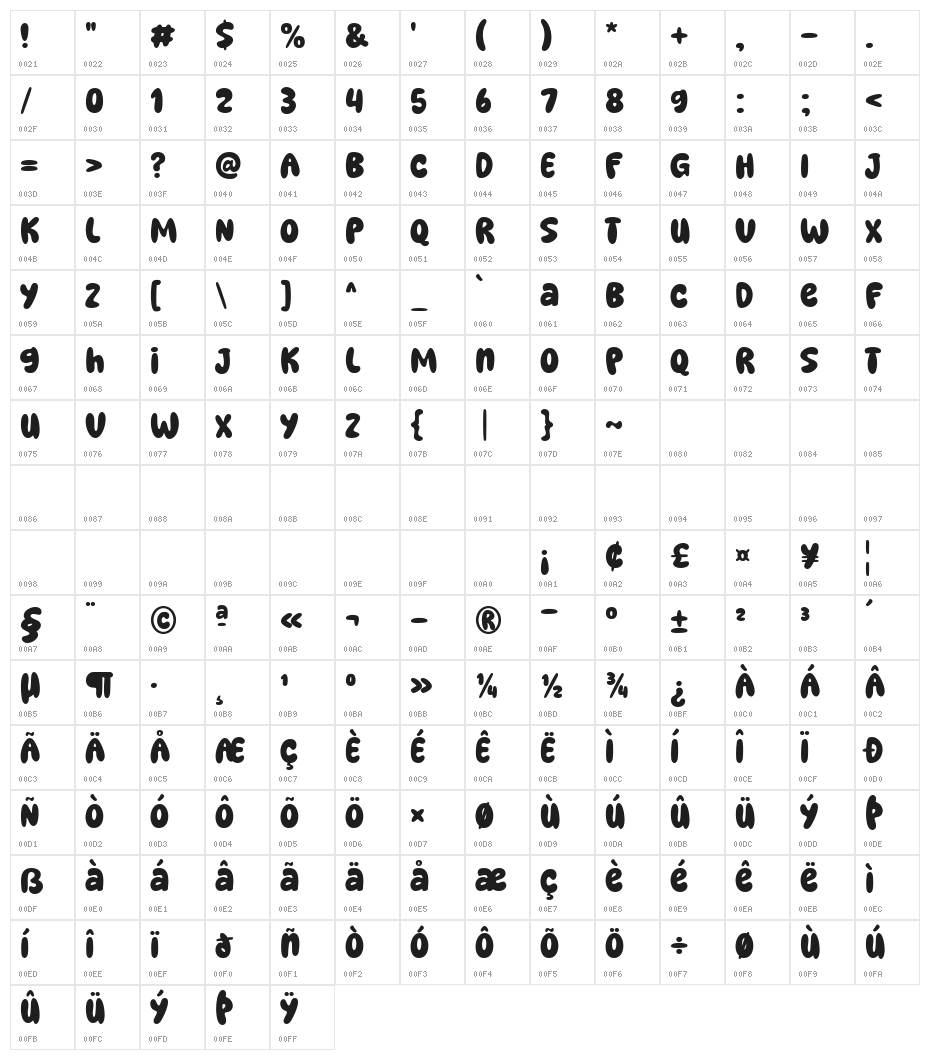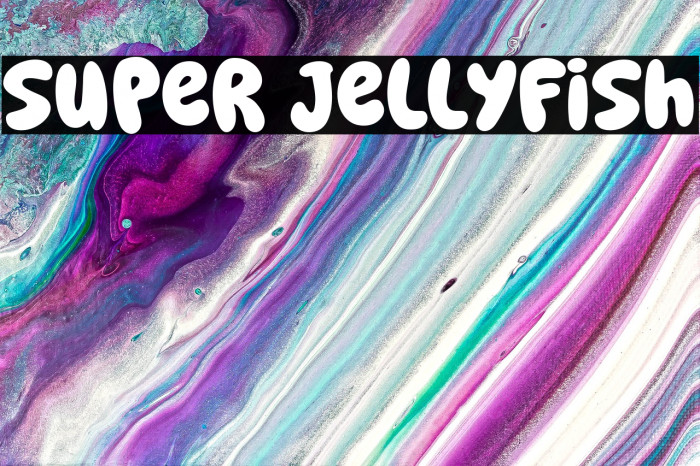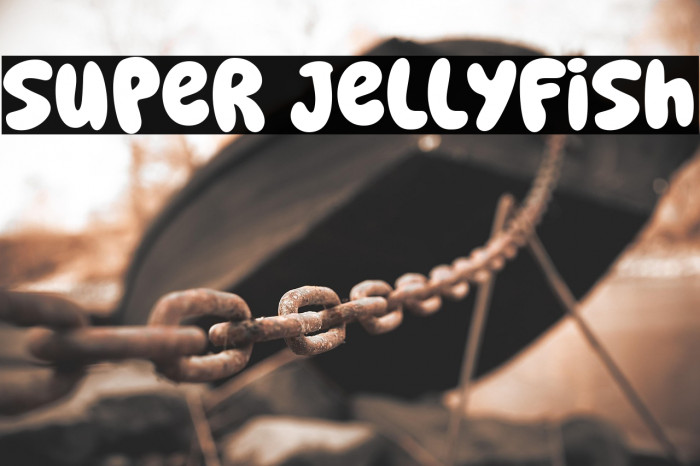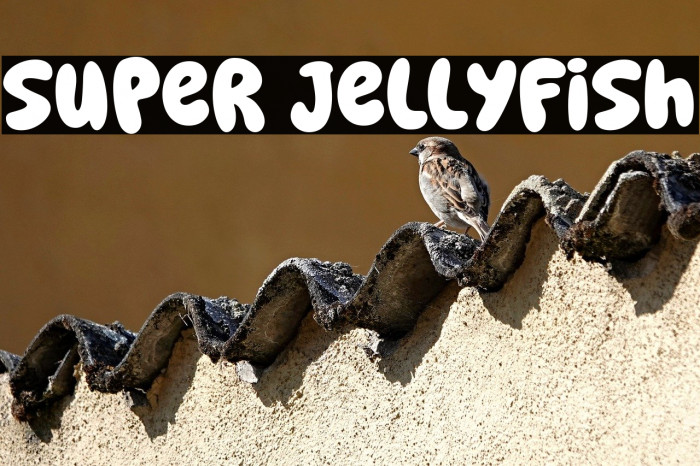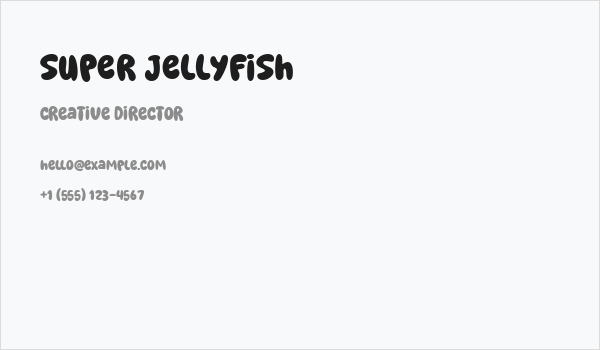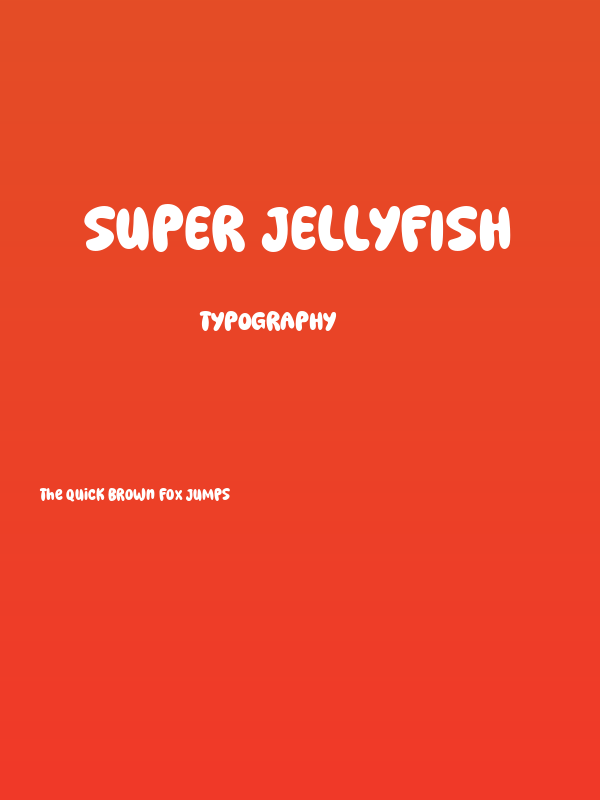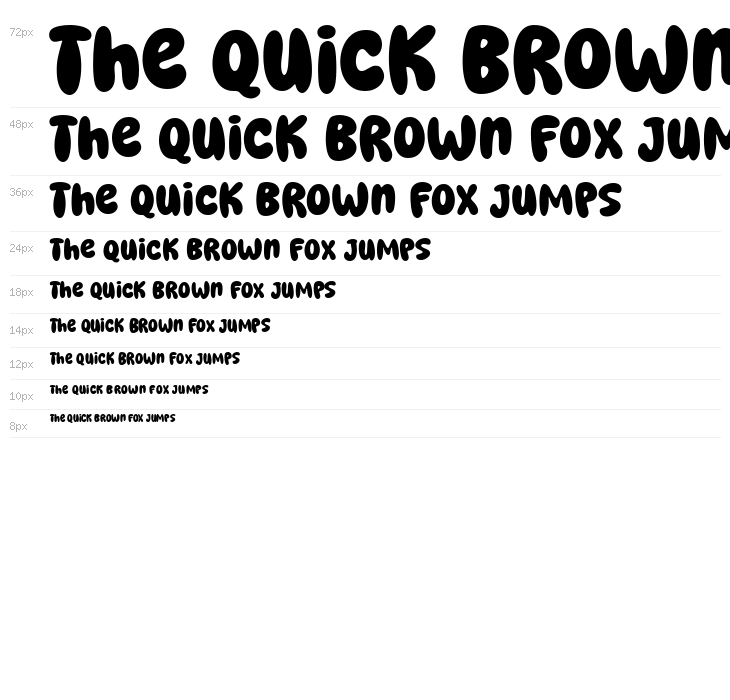
Super Jellyfish Font
| おすすめプロジェクト | Ideal for children's books, playful branding, party invitations, and any project that requires a fun and approachable typeface. |